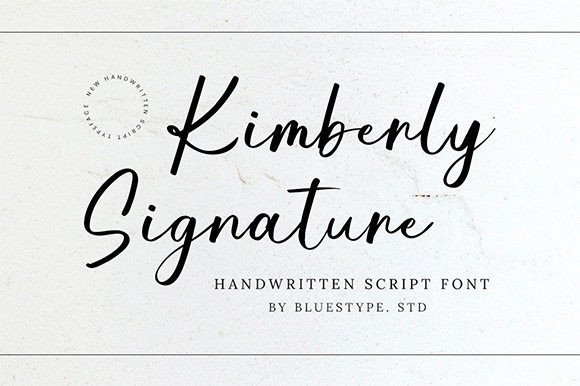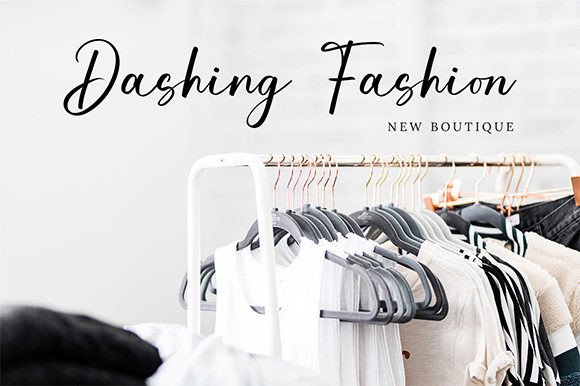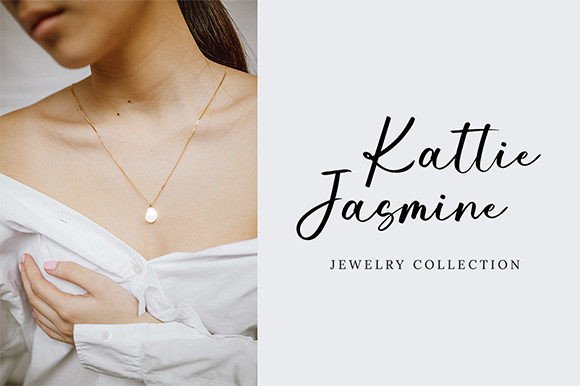
About Kimberly Signature Font
Kimberly Signature is a stunning and casually elegant handwritten font that adds a touch of beauty and modernity to a wide range of design projects. With its stylish and flowing characters, this font is designed to enhance the visual appeal of your creations, making them stand out with a joyful and contemporary vibe.
The beauty of Kimberly Signature lies in its effortless and handcrafted appearance. The handwritten style brings an authentic and personal touch to your text, making it suitable for a variety of applications. Whether you’re working on branding, logos, wedding invitations, social media posts, or any other creative project, Kimberly Signature is a versatile choice that complements modern design aesthetics.
The font’s flowing characters and casual yet stylish design make it suitable for both formal and informal contexts. From elegant wedding invitations to trendy social media graphics, Kimberly Signature adapts seamlessly to different design needs.
As a beautiful and casual handwritten font, Kimberly Signature is a versatile addition to your font library. Its modern touch and joyful vibe make it a perfect choice for projects where you want to convey a sense of style, warmth, and authenticity.
In summary, Kimberly Signature is not just a font; it’s a design tool that adds beauty and a modern touch to your projects. Let Kimberly Signature be the font that elevates the visual appeal of your creations, making them more joyful, stylish, and memorable.